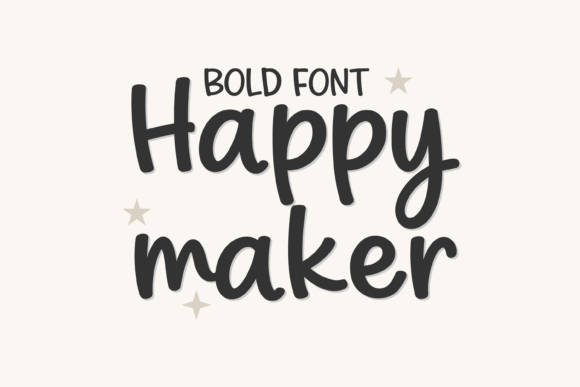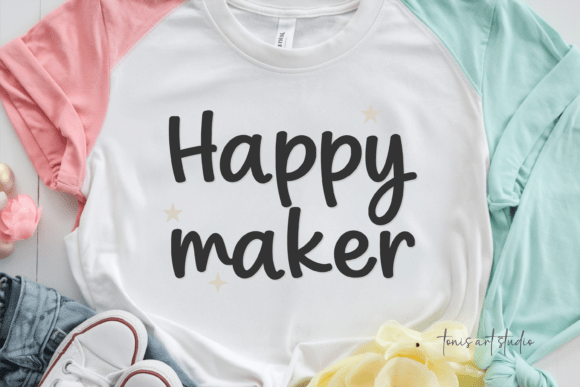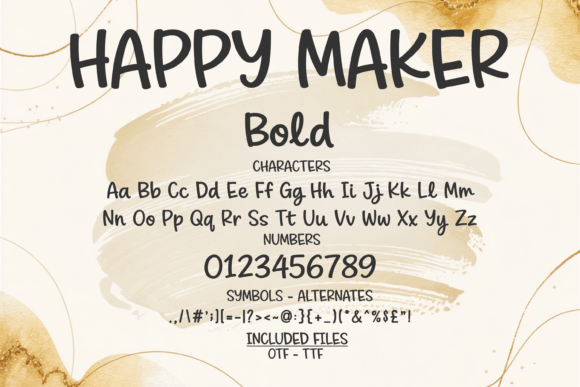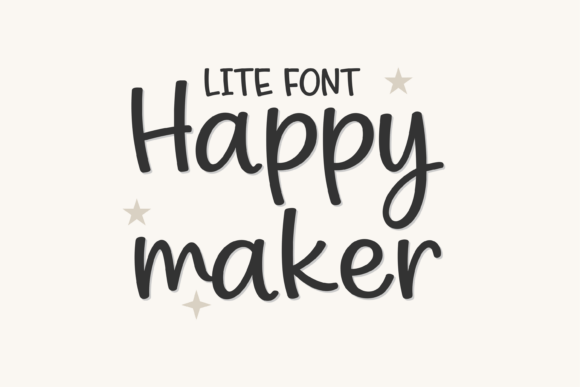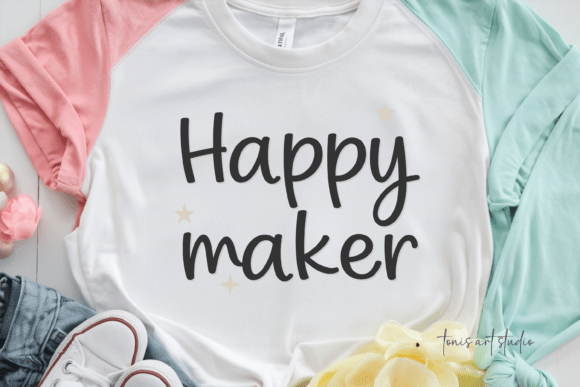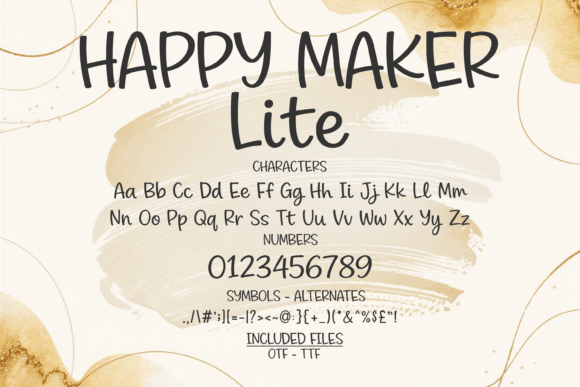
Introducing Happy Maker Font: The Cheerful Handwritten Font for Joyful Designs
Are you tired of using dull and generic fonts that fail to capture the essence of your creative projects? Look no further than Happy Maker Font, a delightful handwritten font that embodies the spirit of positivity, creativity, and everyday joyful moments. Designed to bring a smile to your face, Happy Maker is the perfect addition to your design toolkit, whether you’re a teacher, crafter, or creative entrepreneur.
A Font that Feels Warm and Friendly
Happy Maker Font is characterized by its smooth rounded strokes and natural handwritten flow, making it feel warm, friendly, and approachable. The font’s clean and easy-to-read design ensures that your text remains legible, even at smaller sizes. Each letter is carefully crafted to create a playful yet balanced look, making it perfect for both fun and practical designs. Whether you’re creating teacher resources, kids’ projects, or planners, Happy Maker is the ideal font to add a touch of personality to your work.
Perfect for Creative Branding and Design Workflows
Happy Maker Font is not just limited to personal projects; it’s also an excellent choice for creative branding and professional designs. Its casual handwriting style adds a touch of personality without feeling messy, making it suitable for a wide range of applications, from digital design workflows to high-quality print materials. The font is fully compatible with popular design software, including Canva, Goodnotes, Procreate, Illustrator, and Photoshop, ensuring seamless integration into your creative workflow.
Optimized for Digital and Print Use
Happy Maker Font is optimized for smooth on-screen use and high-quality print results, making it a versatile font for various creative applications. Whether you’re designing digital planners, printable art, or children’s educational materials, this font ensures that your work looks stunning and engaging. The font’s flexibility allows you to use it across different mediums, from social media graphics to business cards, without compromising on quality.
Ideal for Teachers, Kids’ Projects, and Planners
Happy Maker Font is particularly well-suited for teachers, kids’ projects, and planners. Its cheerful and approachable design makes it perfect for:
- ✏️ Teacher resources & classroom materials: Create engaging and interactive lesson plans, worksheets, and activity sheets that capture your students’ imagination.
- 🎨 Kids projects & playful designs: Add a touch of fun and personality to your child’s artwork, crafts, and creative projects.
- 📒 Planners, journals & digital notes: Design beautiful and functional planners, journals, and digital notes that inspire creativity and organization.
Get Creative with Happy Maker Font
In conclusion, Happy Maker Font is a delightful handwritten font that embodies the spirit of creativity, positivity, and everyday joyful moments. Its smooth rounded strokes, natural handwritten flow, and playful yet balanced design make it perfect for a wide range of creative applications. With its versatility, compatibility, and optimization for digital and print use, Happy Maker Font is an excellent addition to any design toolkit.